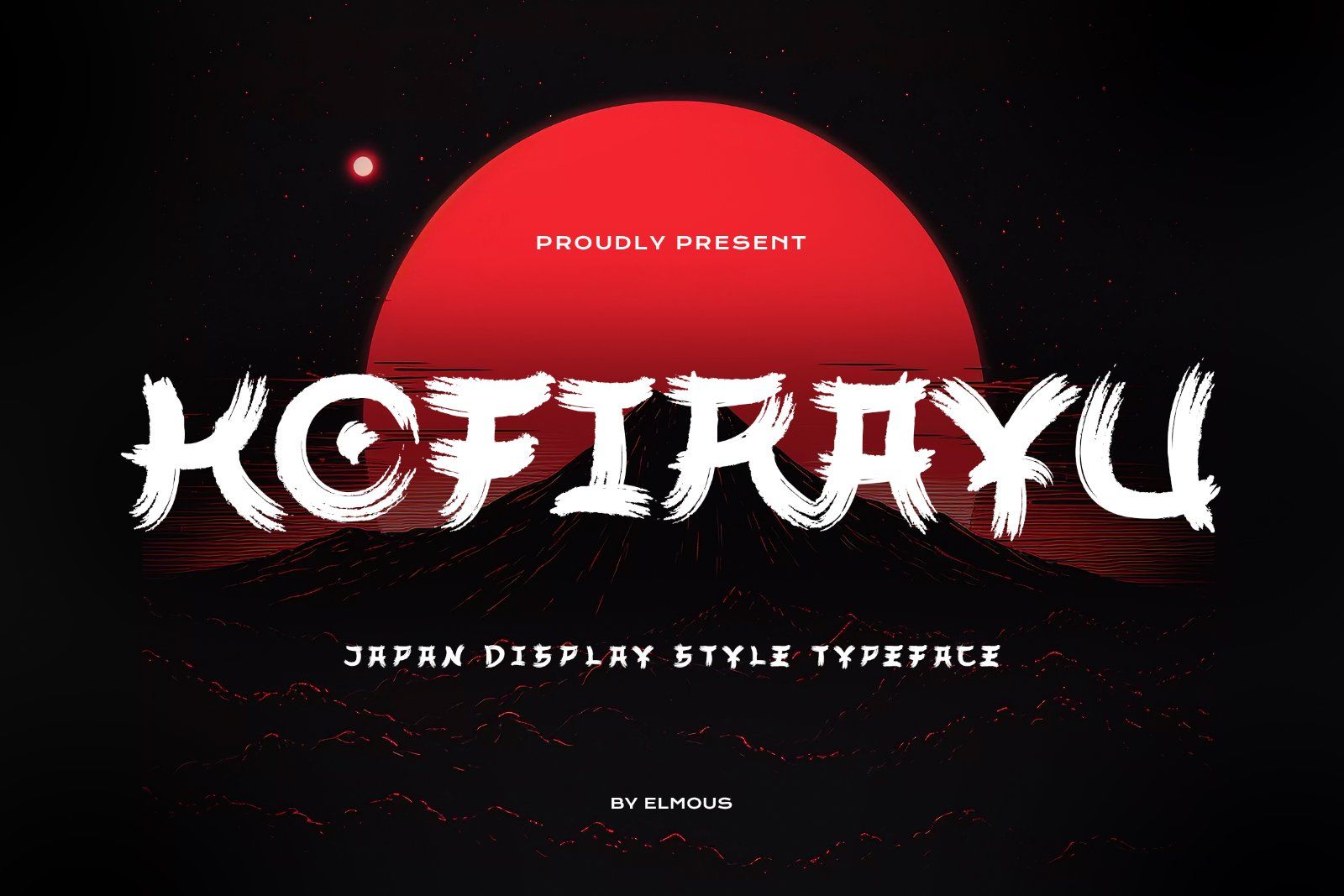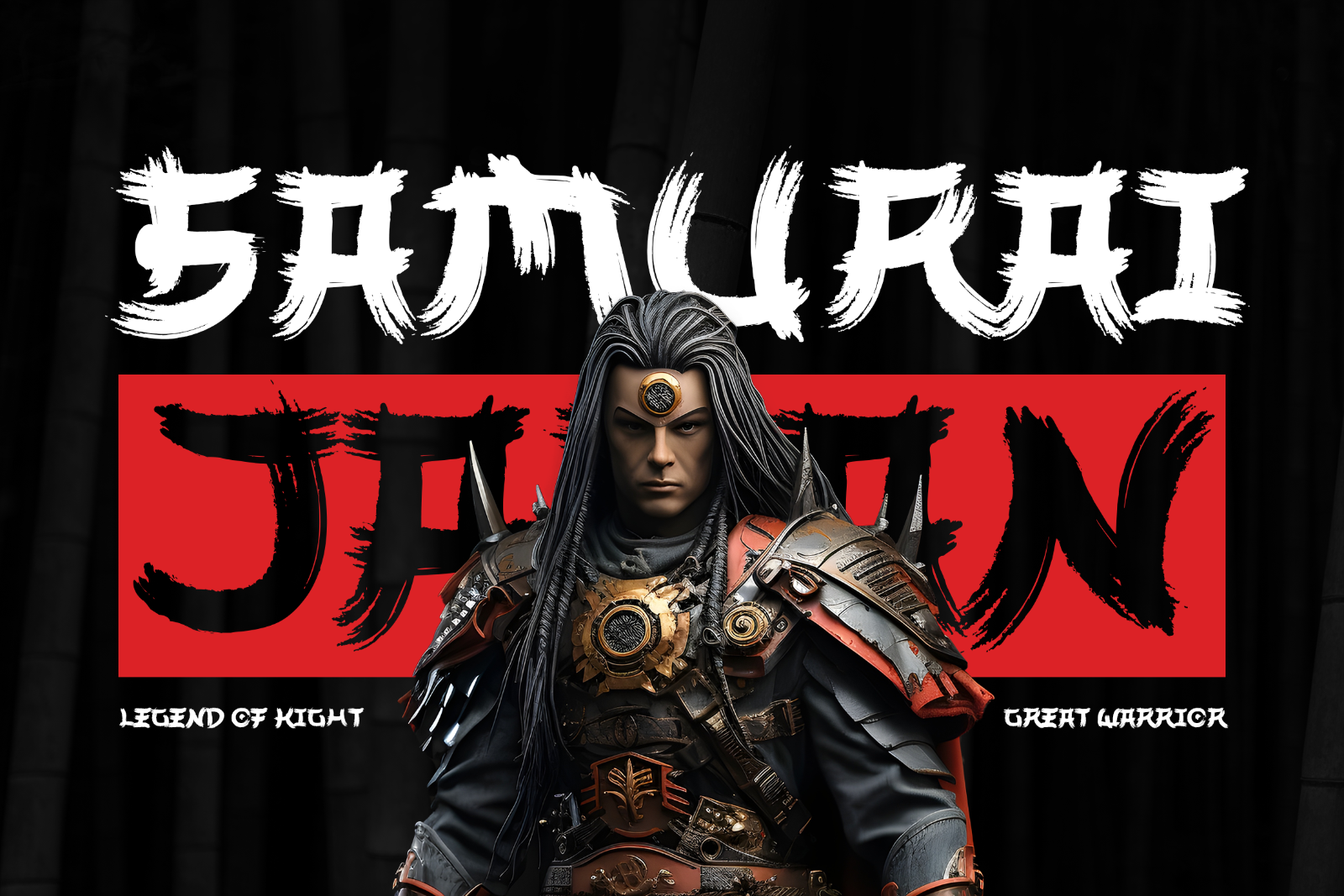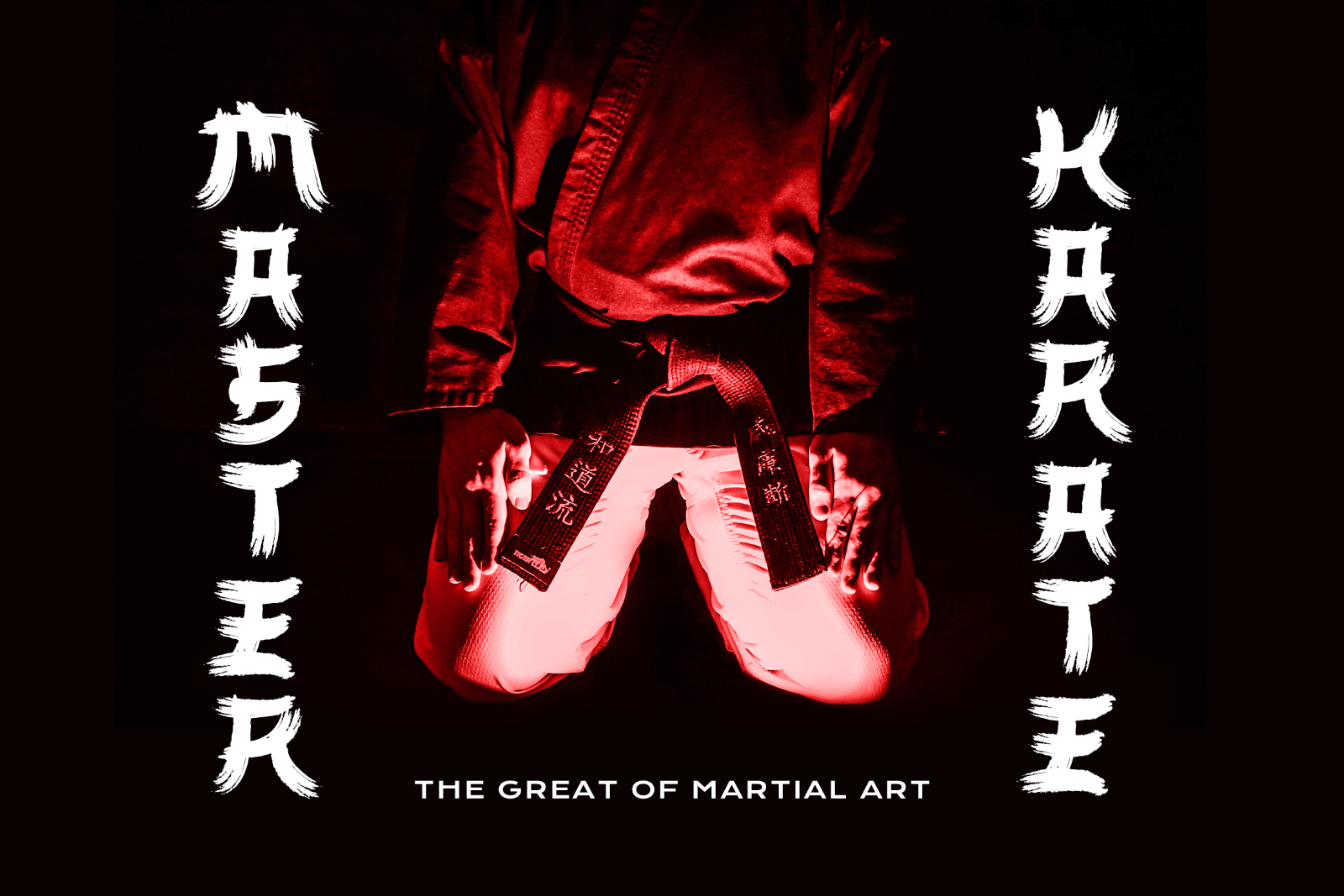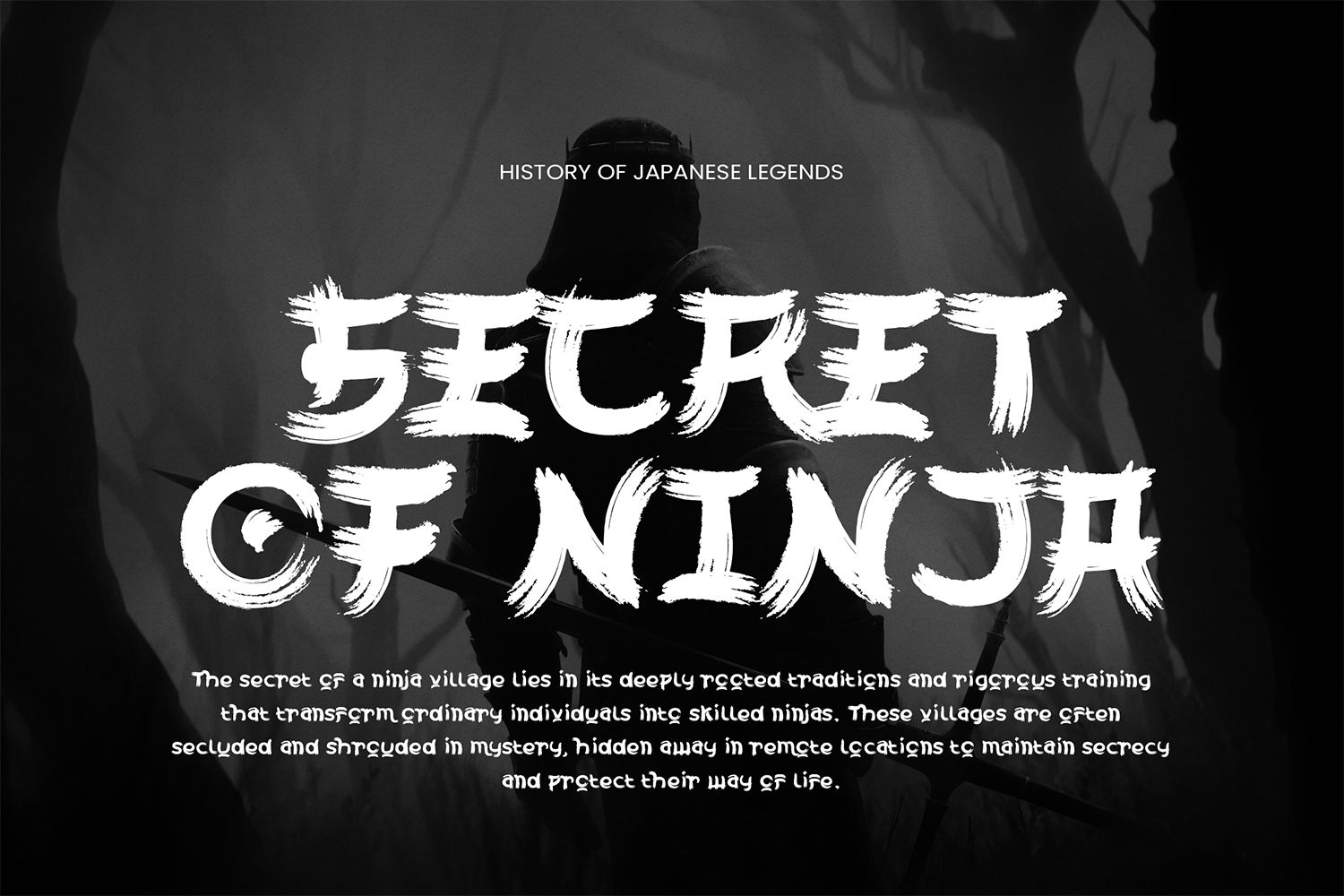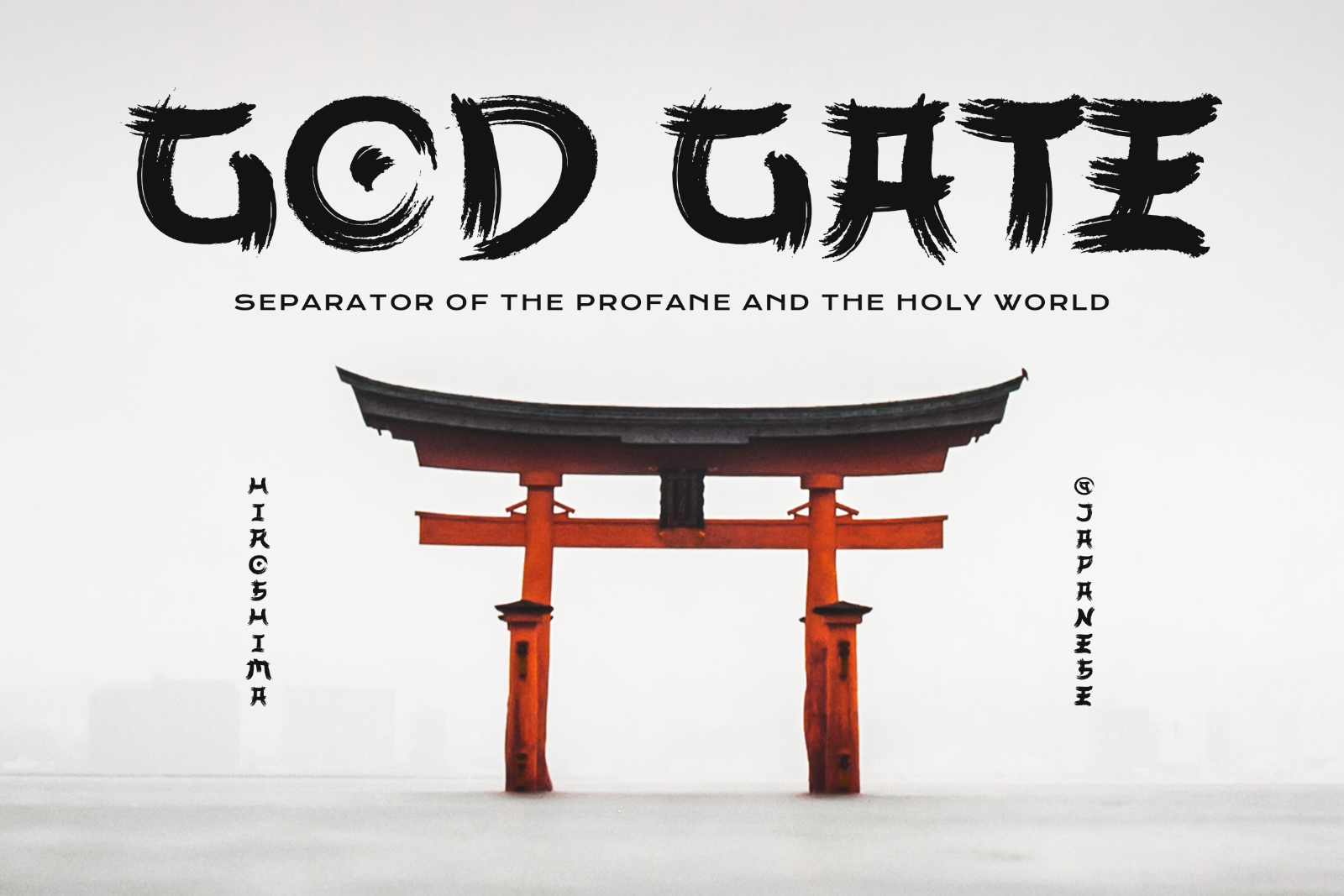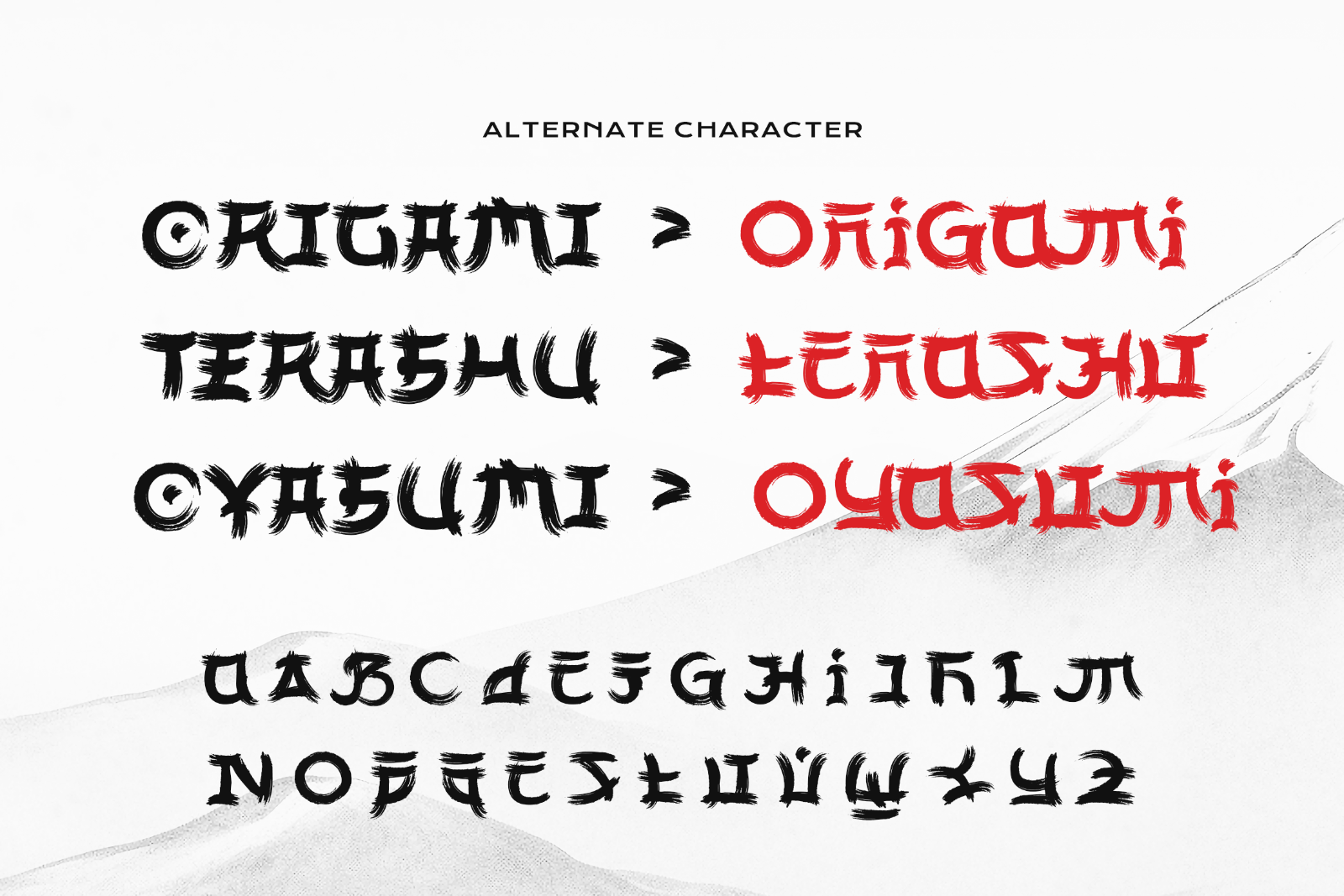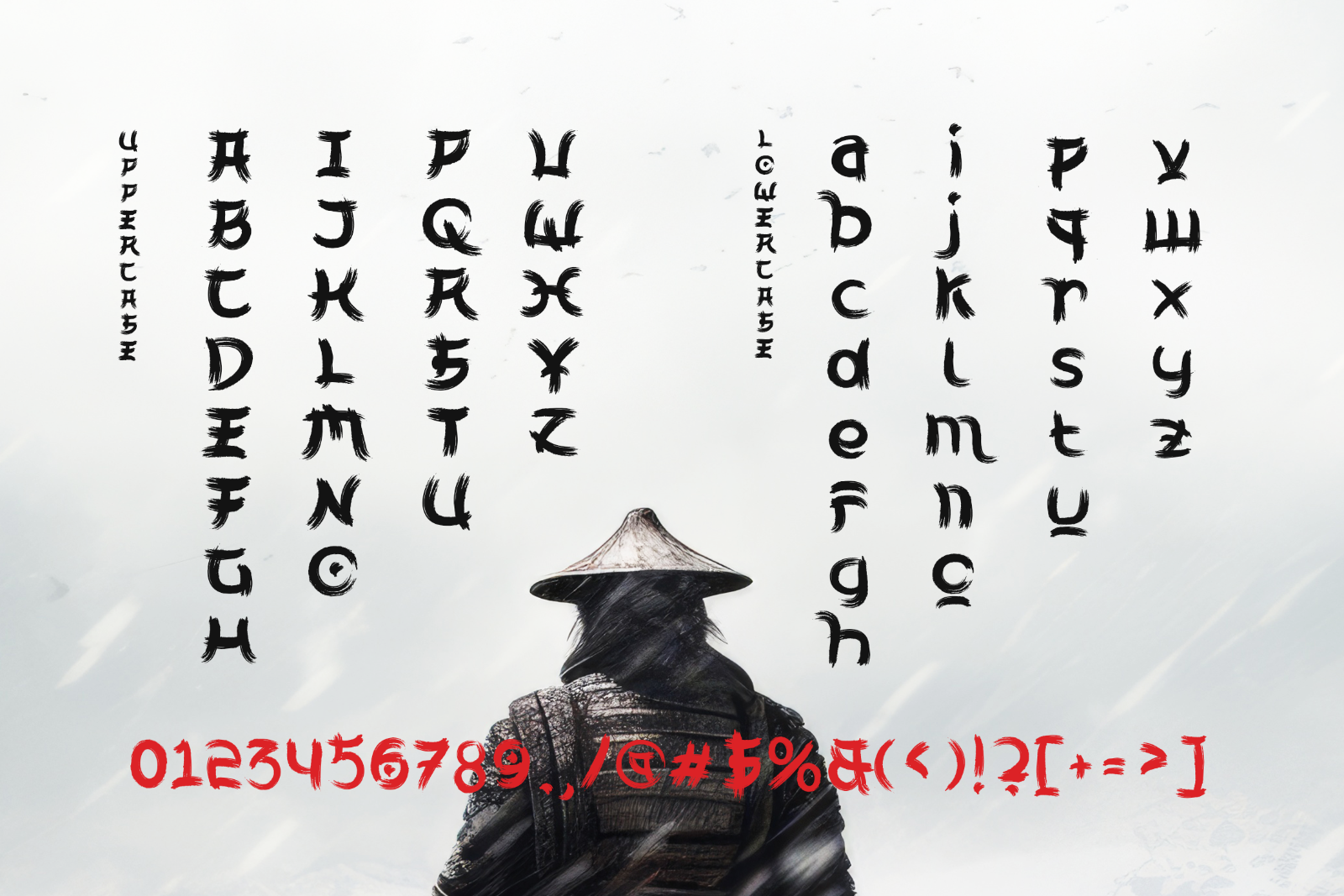
Introducing 'KOFIRAYU' a japanese brush stroke font uses wide, powerful brush strokes that exude a sense of strength and vigor. The thick brush lines are rough at the edges, giving it a hand-drawn appearance and conveying the power and discipline of a warrior's spirit.
The strong brush strokes and contrasts evoke themes of power, legacy, and tradition and artistry associated with east asian, with well-balanced combination of traditional brush calligraphy with modern typography, making it suitable for a variety of design contexts, from cultural to contemporary projects, titles, posters, or game themes focused on warriors, legends, or epic narratives, artistic or cultural projects that want convey an asian aesthetic, especially japanese themes.
• Uppercase and Lowecase Characters.
• Numerals and Punctuations.
• Alternates and Ligatures.
• Multilingual Support.